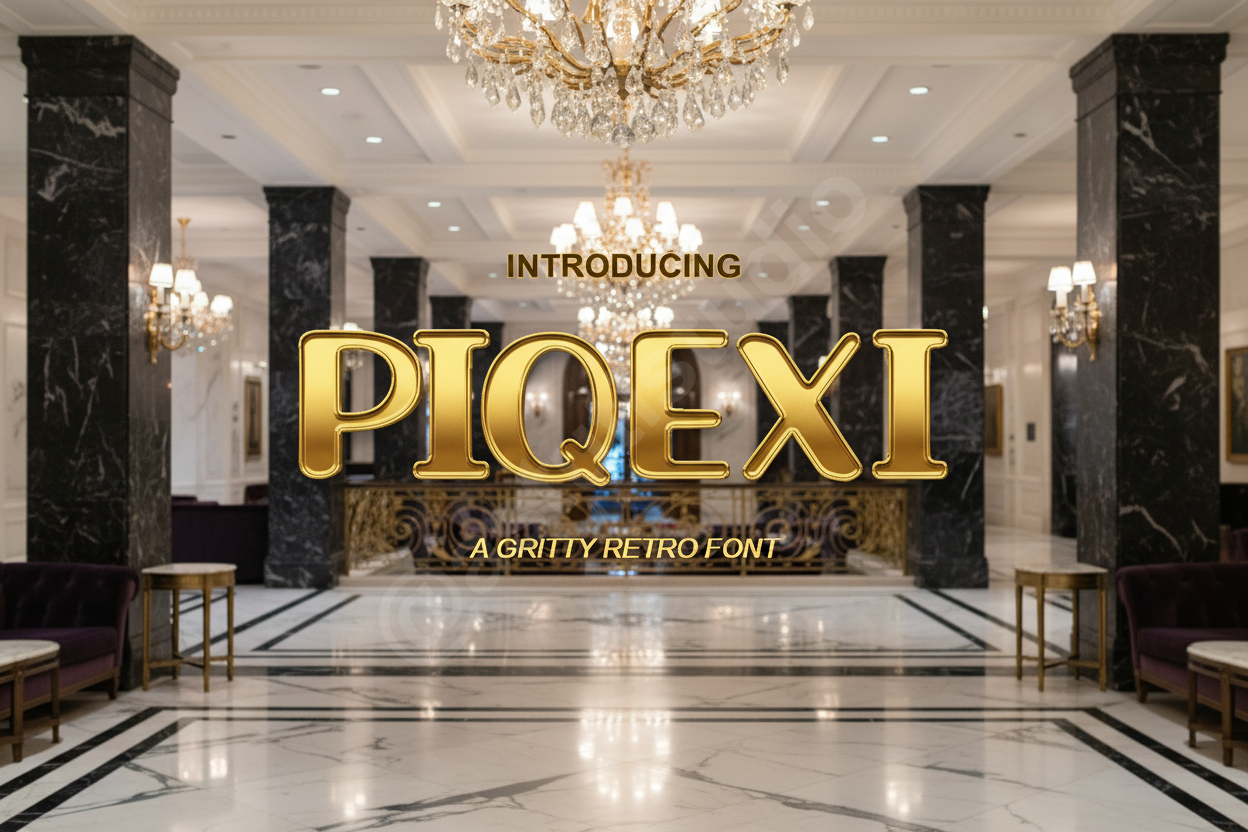
Piqexi | Elegant Serif Typeface for
Piqexi - A Timeless Luxury Serif Typeface
Elevate your visual identity with Piqexi, a premium serif font meticulously crafted for the modern creative. Drawing inspiration from classic editorial typography, Piqexi balances sharp terminals with soft curves, making it an essential tool for designers seeking a high-end, sophisticated look.
Perfectly suited for luxury branding, editorial layouts, high-fashion advertisements, and refined social media content, Piqexi provides a clean yet authoritative presence across both digital and print media.
- Elegant, high-contrast serif design
- Extensive ligatures and stylistic alternates
- Multilingual support for global reach
- Optimized for legibility in body text and impact in headlines
- Perfectly kerned for professional results
- Full set of uppercase and lowercase letters
- Numbers, punctuation, and symbols